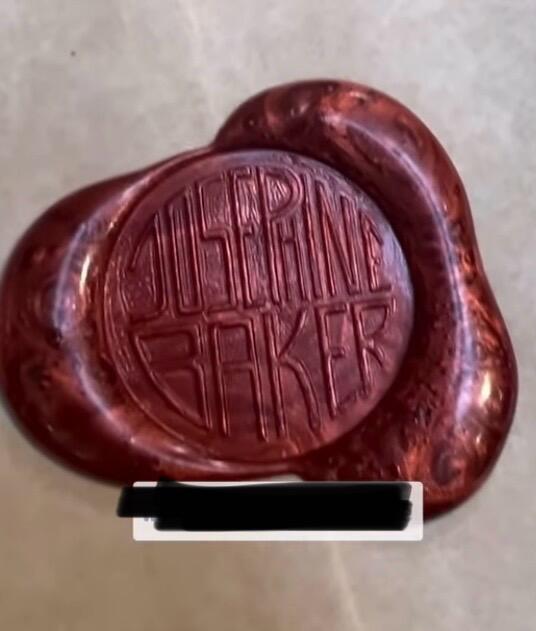
I need help with this font used for Josephine Baker’s personal wax seal. Late 1920s or early 1930s. Likely made in France, possibly Germany
I’m looking to create a similar logo and would love to find a digital version of this font or something close to it.
What do you like about it? It would help with recommendations.
Because it’s all lettering drawn for this specific purpose and along a circle, so the special look comes from the fact that it is lettering and not a font.